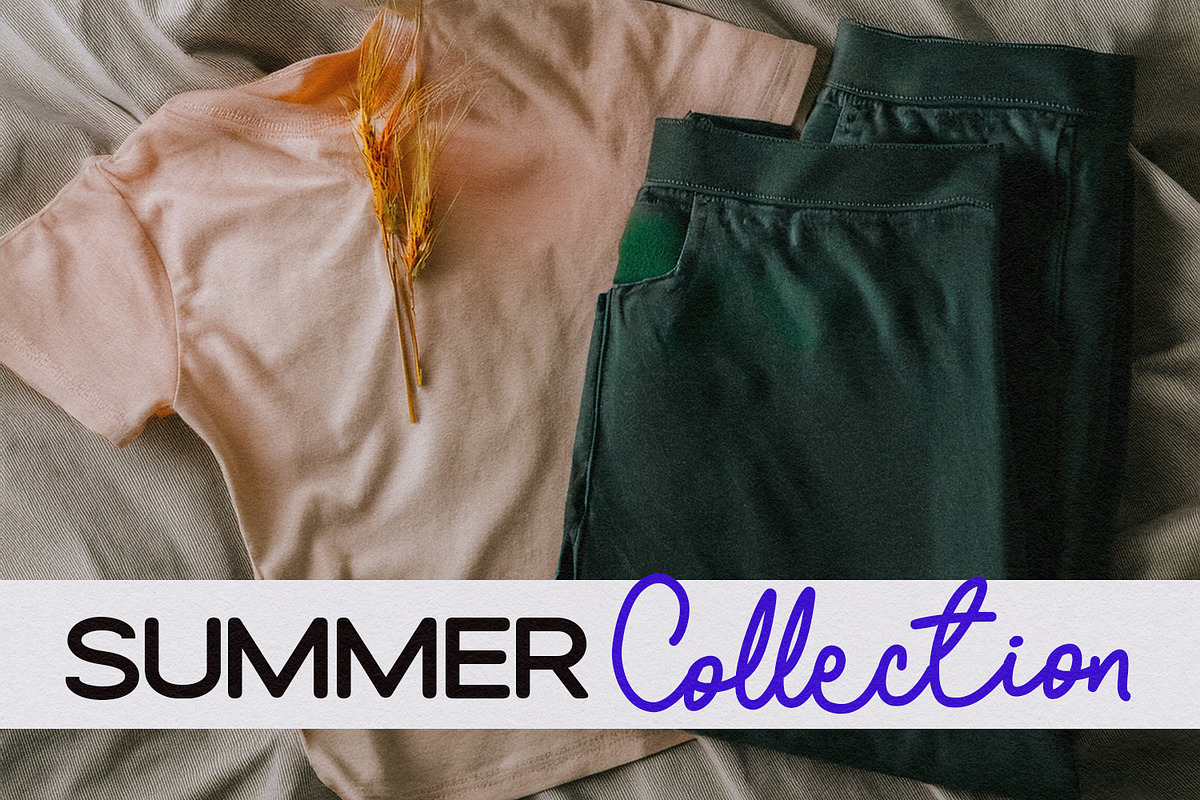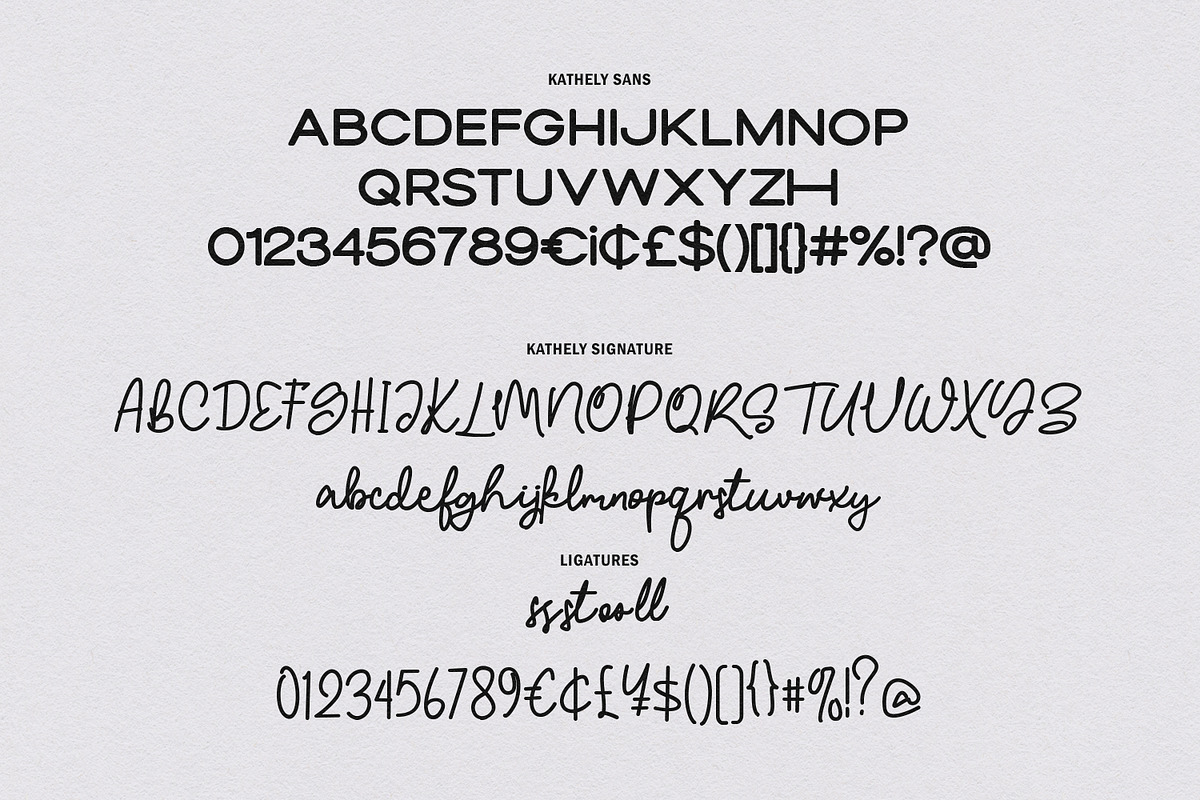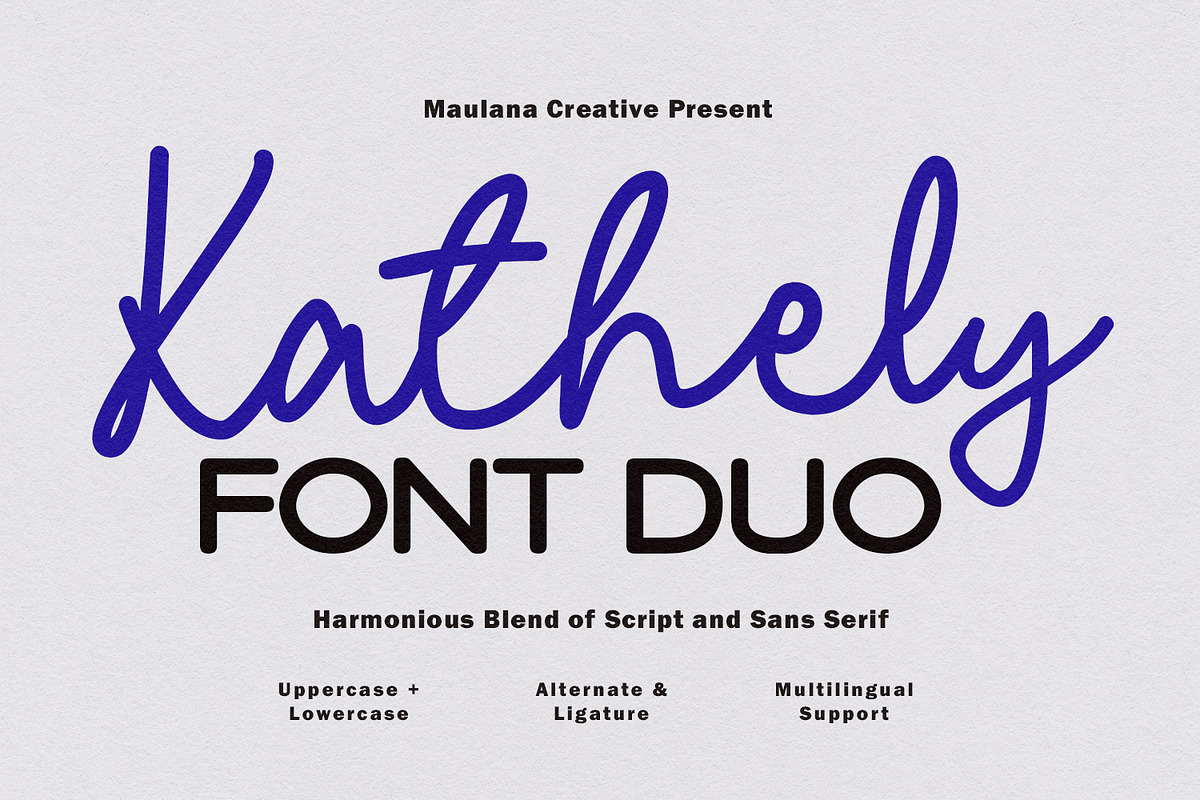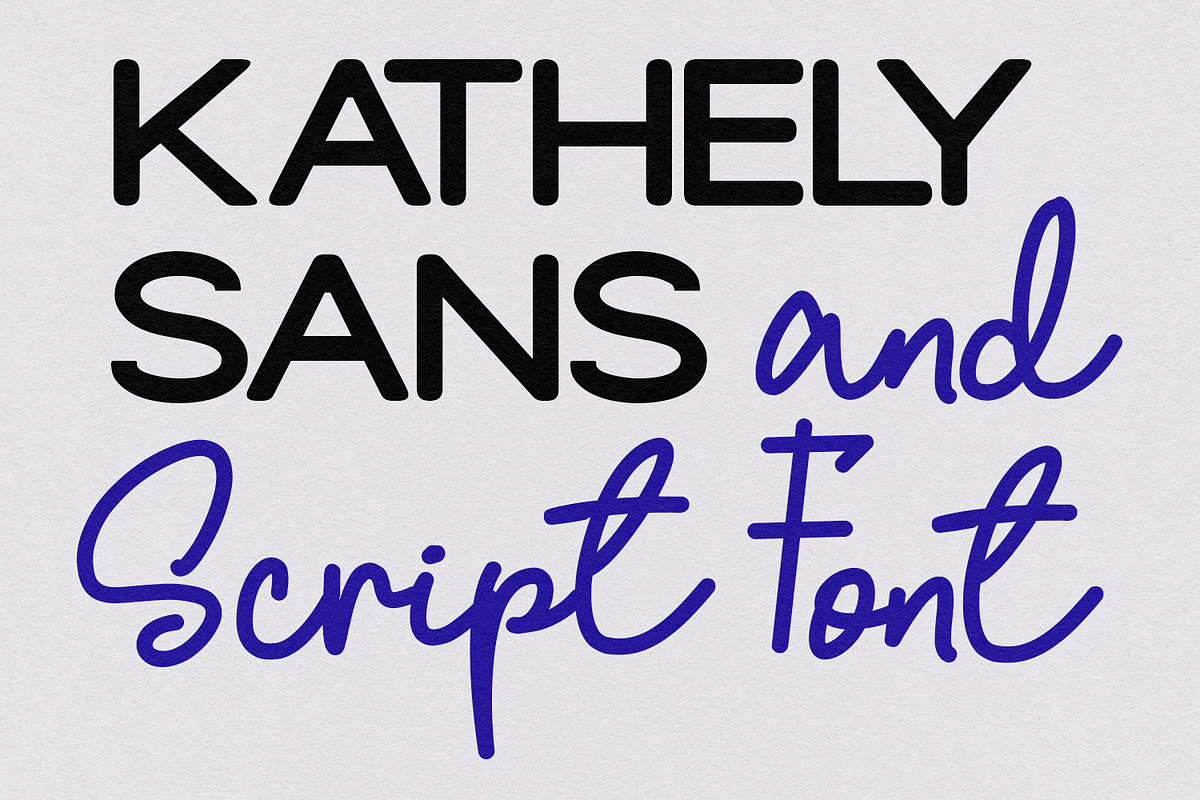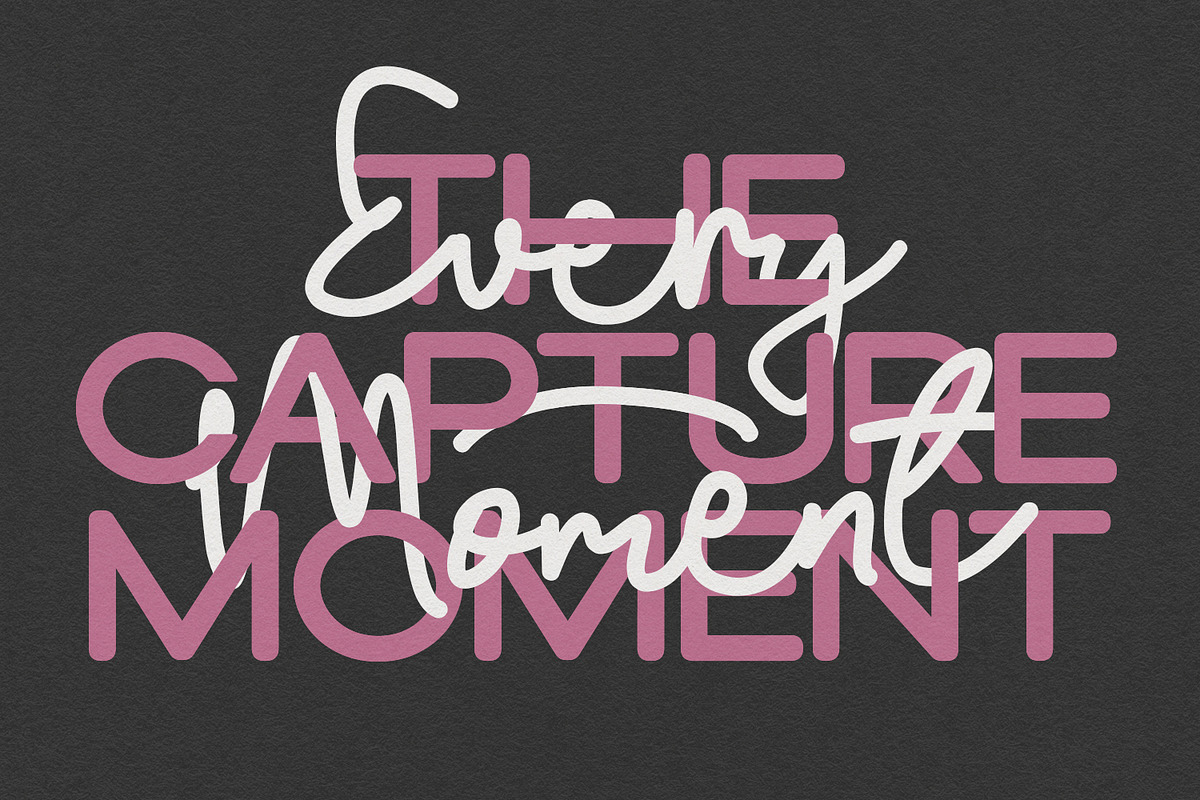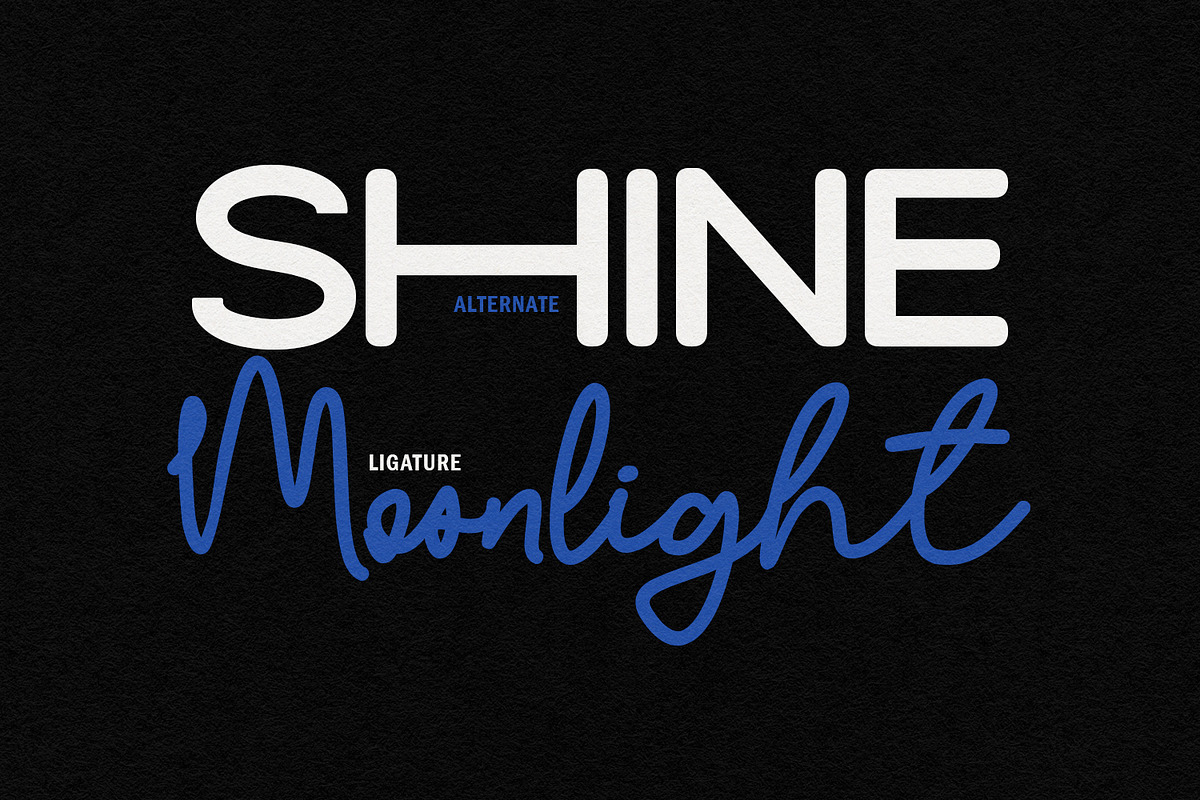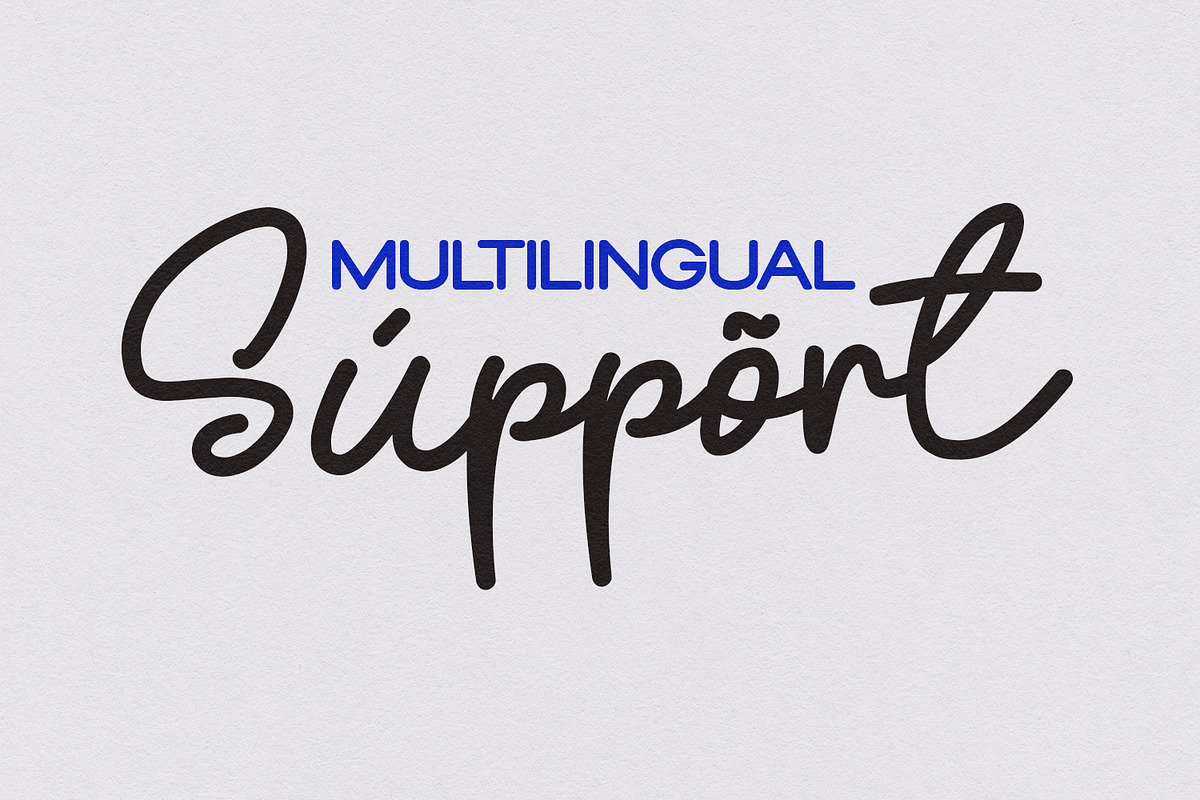
Kathely Font Duo Sans Signature
Kathely is a sophisticated font duo designed to bring a balanced, professional, and organic feel to your creative projects. This pair features Kathely Sans, a clean and bold monolinear sans-serif with modern geometric touches, and Kathely Signature, a flowing, expressive script that mimics natural handwriting.
Perfect for branding, wedding invitations, social media graphics, and apparel design, this duo offers seamless versatility. With built-in ligatures, stylistic alternates, and full multilingual support, Kathely allows you to create high-contrast typography that is both legible and full of character.
- Full character set Script (Uppercase & Lowercase)
- Full character set Sans (Uppercase)
- Numbers, Punctuation, and Symbols
- Ligatures Script for a natural handwriting flow
- Alternate Sans